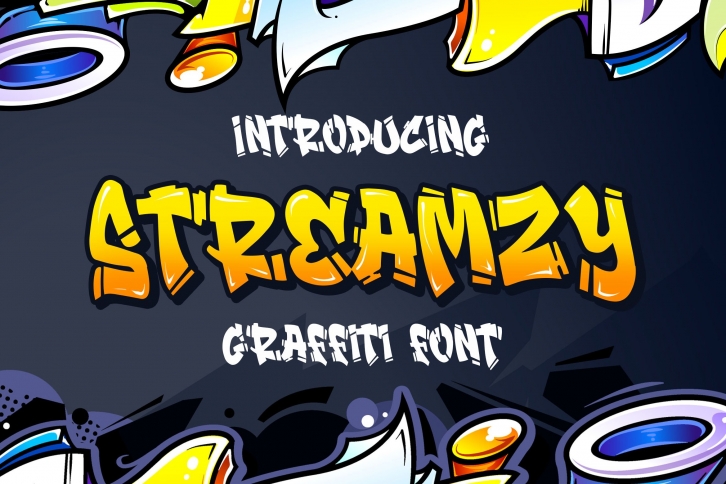
Introducing of our new product the name is Streamzy Graffiti Font. Streamzy inspired by graffiti style with a fun theme very good for graffity poster, Hip Hop music, kids poster, flyer, childrenbook, cartoon, comic etc